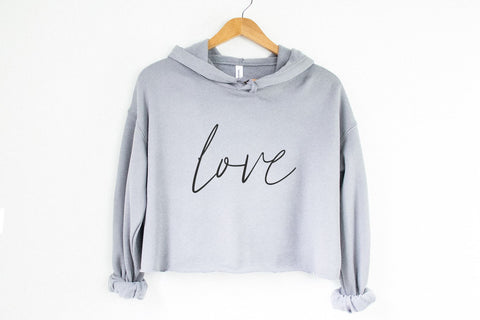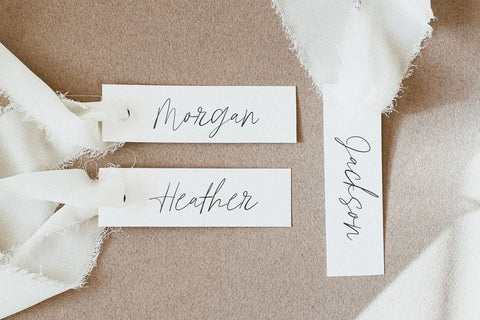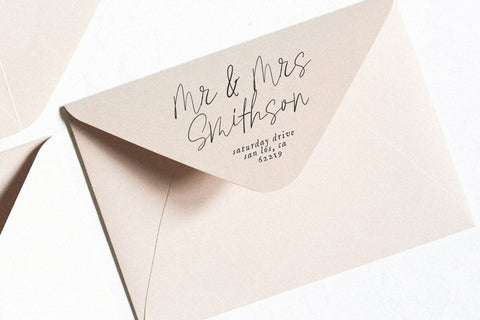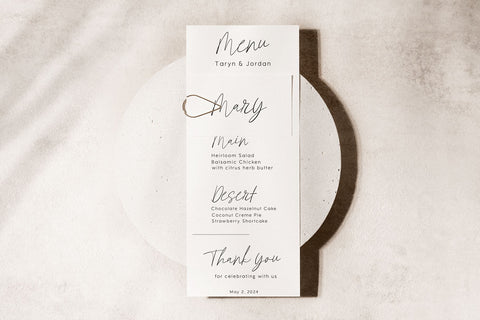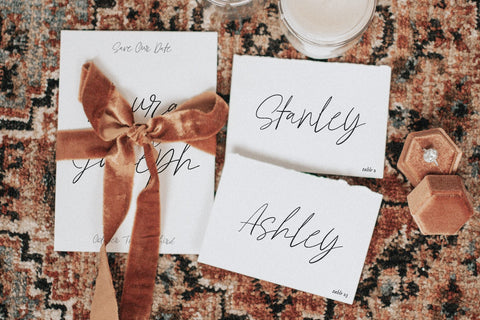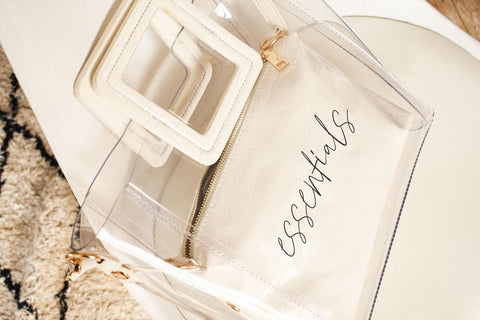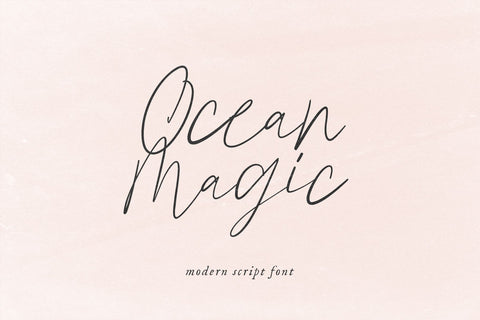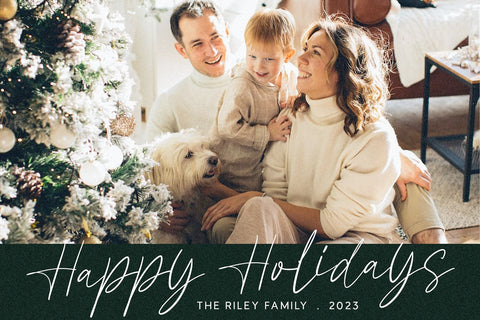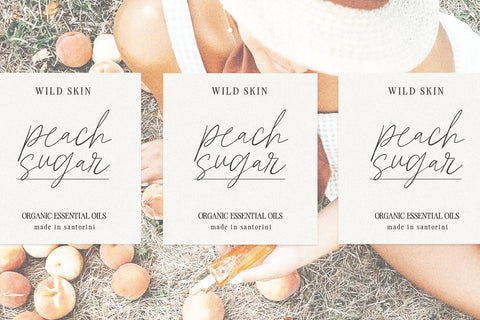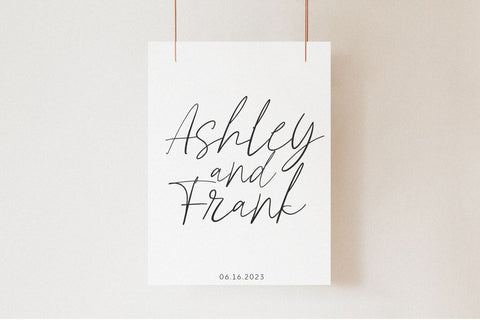
Ocean Magic - Modern Script Font
Ocean Magic is a delicate font written with modern calligraphy.
This font is perfect for branding, logos, signatures, packaging, shirts, quotes, social media, wedding decor, invitations and more!